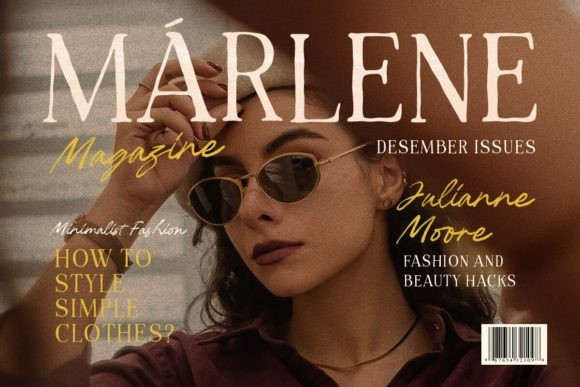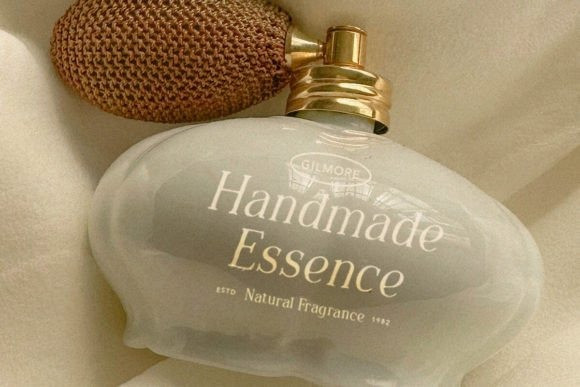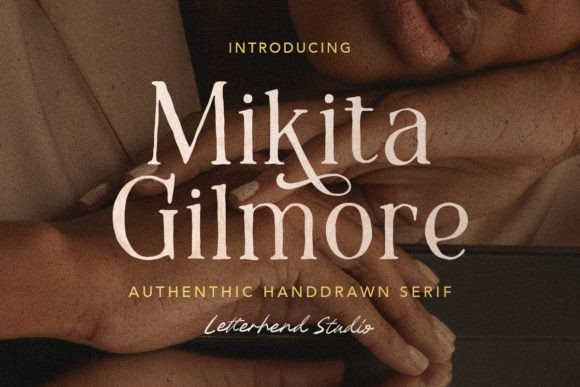
Mikita Gilmore Font
Mikita Gilmore Font is a sophisticated serif font with an authentic handdrawn style. Perfectly applied to various formal projects such as invitations, labels, logos, magazines, books, greeting / wedding cards, packaging, fashion, make up, stationery, novels, labels or any type of advertising purpose.